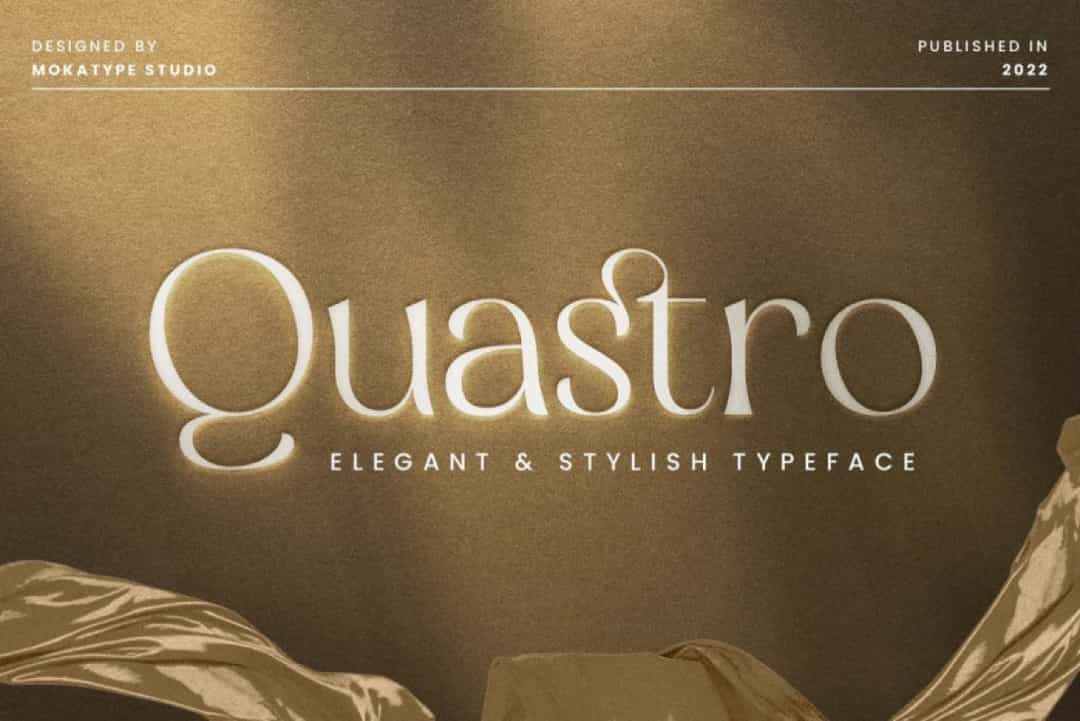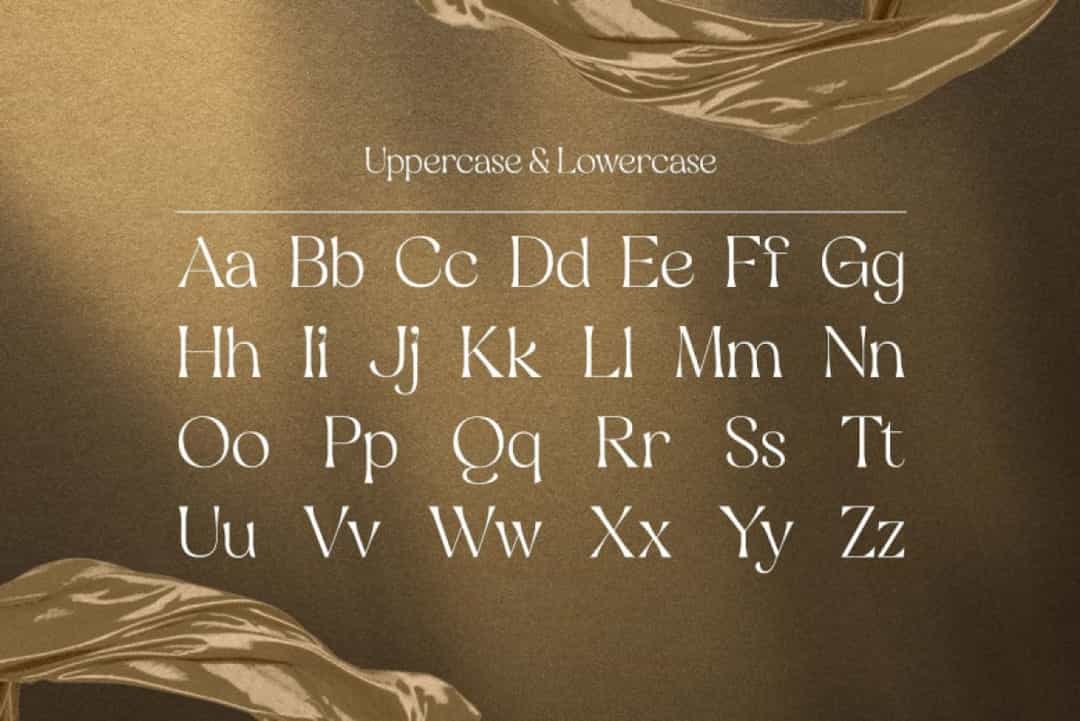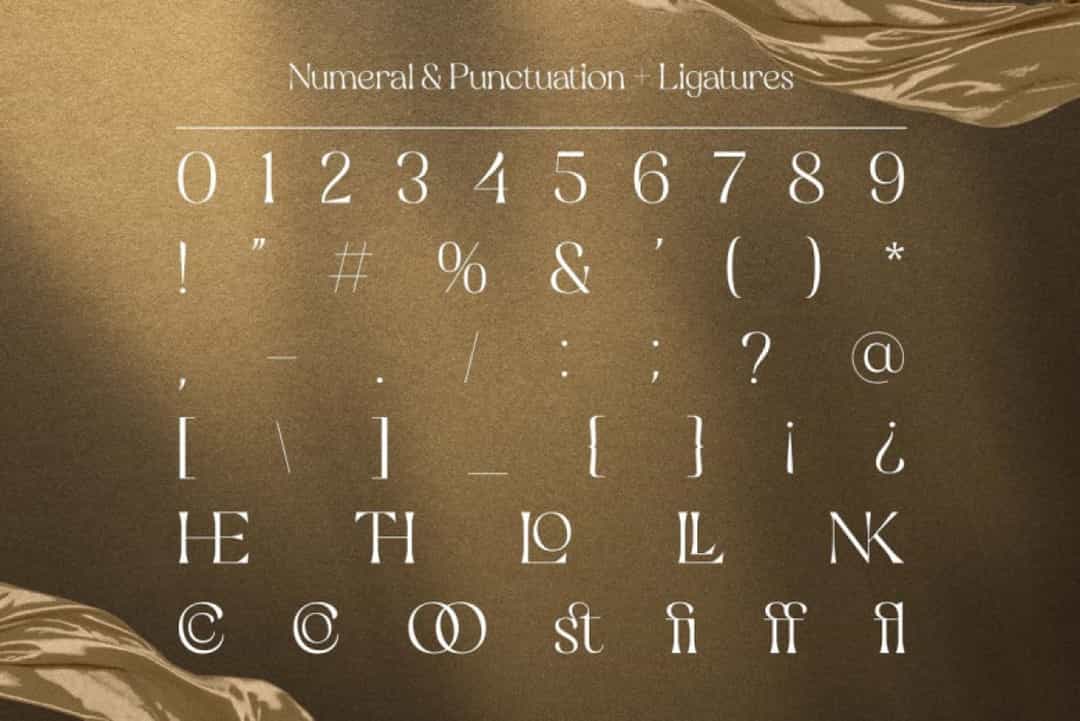
Hello and welcome to Quastro font! An elegant and stylish display Serif font, Quastro uses Ligatures to seamlessly link letters together for added dimension in logos with wordmarks monograms pull quotes etc. With 12 ligatures that can be toggled off when writing standard text.